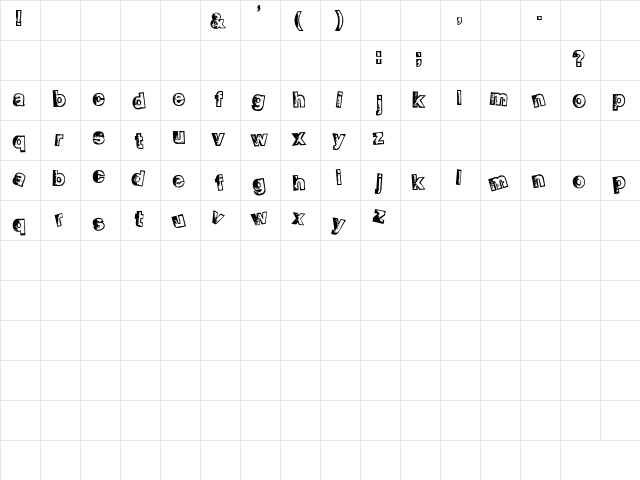
Smellvetica Outline
Design Context for Smellvetica Typeface
Smellvetica brings ornamental detail and strong personality to headlines and identities, where visual impact matters more than quiet functionality.
Font Pairing: Pair with a clean neutral sans-serif for body copy to let Smellvetica's character lead without overwhelming the composition.
Pro Tip: Use Smellvetica exclusively at display sizes — it was designed to be seen, not read at length. Let a neutral companion handle body copy.